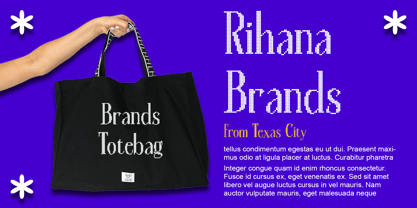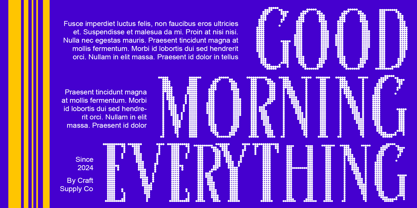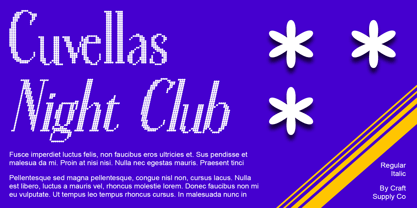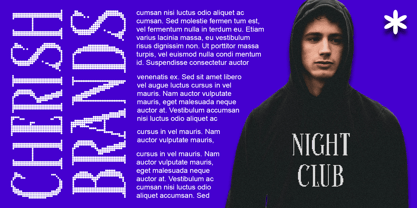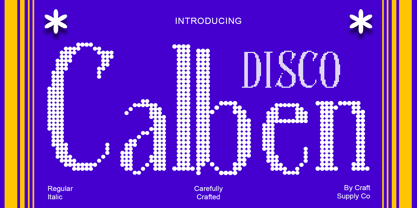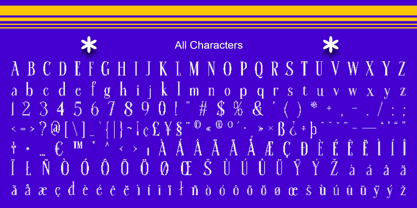
Calben Disco
by Craft Supply Co
The Calben Disco Font Family was designed by Trio Nazzar Saputra, Wahyu Hadi Yuana and published by Craft Supply Co. Calben Disco contains 2 styles and family package options. More about this family
Calben Disco: Groovy Display Typography
Contemporary Condensed Serif
Calben Disco features a sleek condensed serif design, exuding a contemporary vibe that aligns perfectly with modern aesthetics.
Dynamic Dot Style Effects
With its captivating dot style effects, This font channels the vibrant energy of disco, adding a touch of excitement to any design project.
Perfect for Eye-catching Display
Tailored for eye-catching display purposes, This font is ideal for posters, headlines, and promotional materials where grabbing attention is key.
Versatile Application
Beyond its disco-inspired aesthetic, This font offers versatility in application, lending itself well to a variety of design contexts, from branding to event promotions.
Get Your Groove On
This font is the go-to choice for designers seeking to infuse their projects with a dose of disco-inspired flair. With its contemporary condensed serif style and dynamic dot effects, it’s sure to make a statement wherever it’s used. Let This font be your ticket to a groovy design experience!
Designers: Trio Nazzar Saputra, Wahyu Hadi Yuana
Foundry: Craft Supply Co